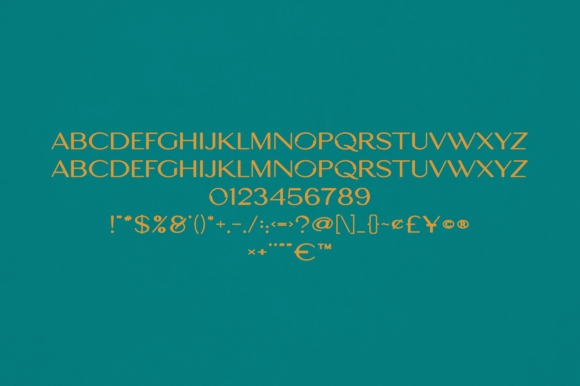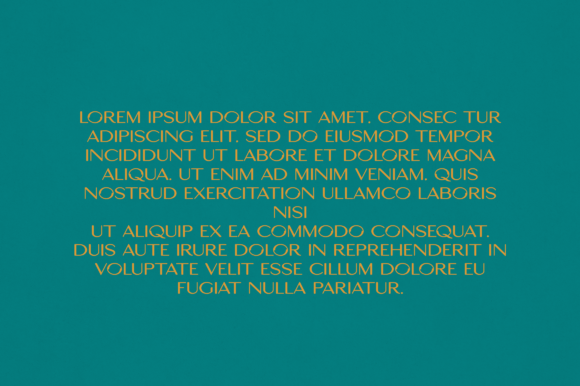
Introducing Adara Font: Elevate Your Typography with Elegance and Versatility
Are you tired of using the same old fonts for your design projects? Look no further than Adara Font, a stunning and versatile typeface that will take your typography to the next level. With its elegant and sophisticated design, Adara Font is perfect for a wide range of applications, from branding and logo design to product packaging and magazine headers.
What Makes Adara Font So Special?
Adara Font is a beautifully crafted font that boasts a unique and distinctive style. Its elegant lines and curves make it perfect for creating sophisticated and eye-catching typography. Whether you’re looking to create a logo, headline, or plain text, Adara Font is sure to enchant your audience. Its versatility is unmatched, making it suitable for a wide range of design projects, including:
- Branding projects: Create a lasting impression with Adara Font’s elegant and sophisticated design.
- Home-ware designs: Add a touch of elegance to your home-ware designs with Adara Font’s beautiful typography.
- Product packaging: Make your product stand out with Adara Font’s unique and eye-catching design.
- Magazine headers: Create stunning magazine headers with Adara Font’s elegant and sophisticated design.
- Text overlays: Use Adara Font as a stylish text overlay to add a touch of elegance to any background image.
The Benefits of Using Adara Font
Adara Font offers a range of benefits that make it the perfect choice for designers and crafters. Some of the key benefits include:
- Unique and distinctive design: Adara Font’s elegant and sophisticated design sets it apart from other fonts.
- Versatility: Adara Font is suitable for a wide range of design projects, from branding and logo design to product packaging and magazine headers.
- Ease of use: Adara Font is easy to use and can be easily integrated into your design projects.
- High-quality design: Adara Font is a high-quality font that is designed to produce stunning results.
How to Use Adara Font in Your Design Projects
Using Adara Font in your design projects is easy. Here are a few tips to get you started:
- Choose the right size: Choose a size that suits your design project. Adara Font is suitable for use in a wide range of sizes, from small text overlays to large headlines.
- Experiment with colors: Adara Font looks great in a range of colors. Experiment with different colors to find the one that works best for your design project.
- Pair with other fonts: Adara Font pairs well with other fonts. Experiment with different font combinations to create a unique and eye-catching design.
Adara Font is a stunning and versatile typeface that is perfect for designers and crafters looking to elevate their typography. With its elegant and sophisticated design, Adara Font is suitable for a wide range of design projects, from branding and logo design to product packaging and magazine headers. Whether you’re looking to create a unique and eye-catching design or simply want to add a touch of elegance to your typography, Adara Font is the perfect choice.